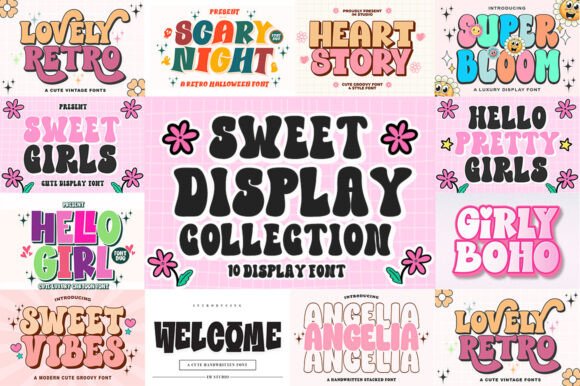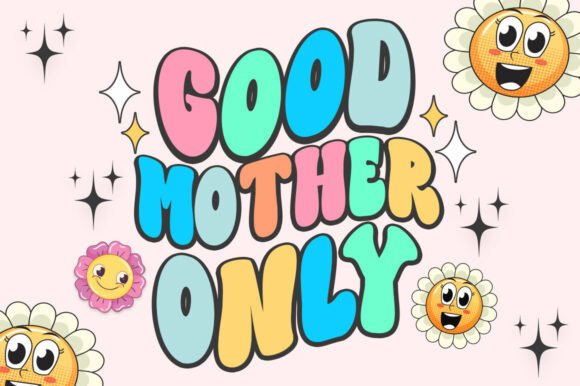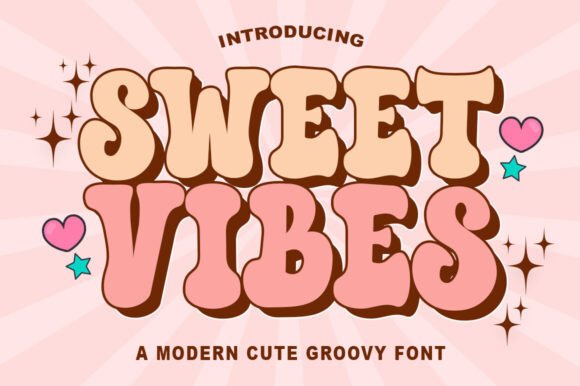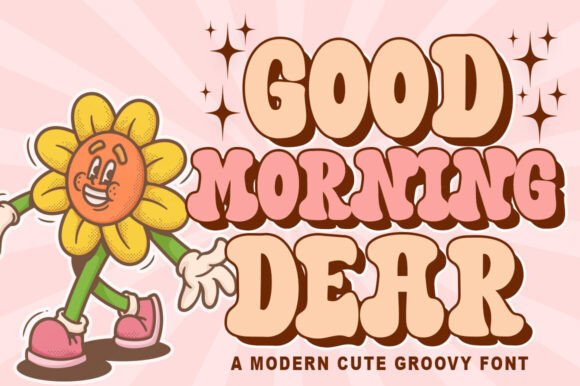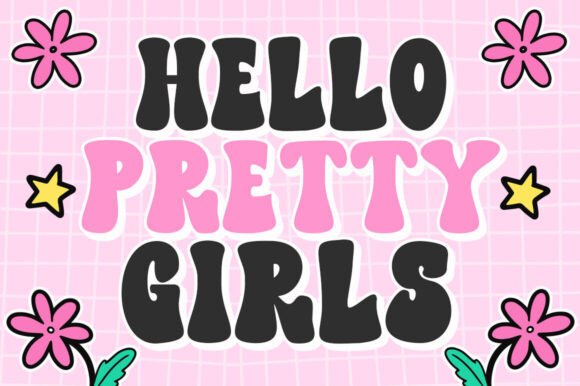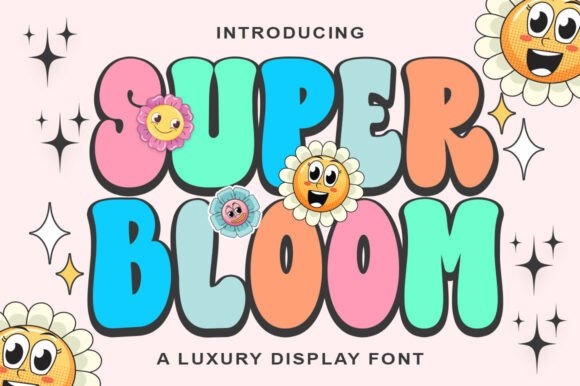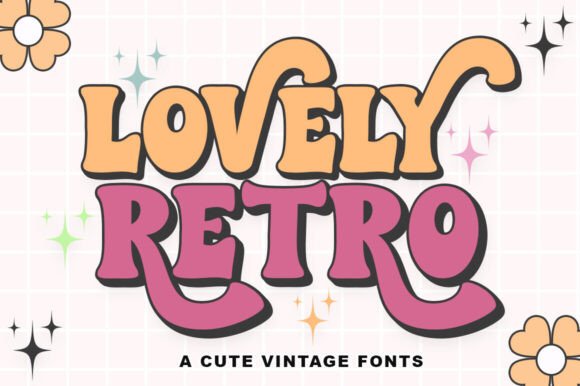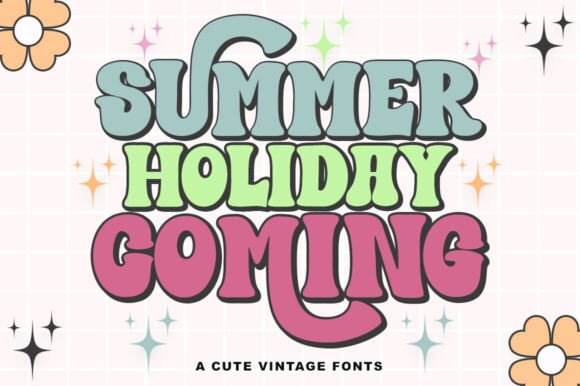
Sweet Display Collection Font
Introducing the captivating Sweet Display Collection, a groovy font style that effortlessly combines nostalgia and charm. This stylish display font brings an undeniably cool twist to your designs. Boasting an array of alternative glyphs, it simplifies the creation of custom text designs that are in vogue. Whether you’re seeking beauty, fun, or a perfect touch, Sweet Display Collection is the ultimate choice for everyone. Features of this font truly distinguish it, offering an intriguing blend for those wanting to make a unique statement. Evocative and intriguing, this font is the secret ingredient to turn ordinary into extraordinary.